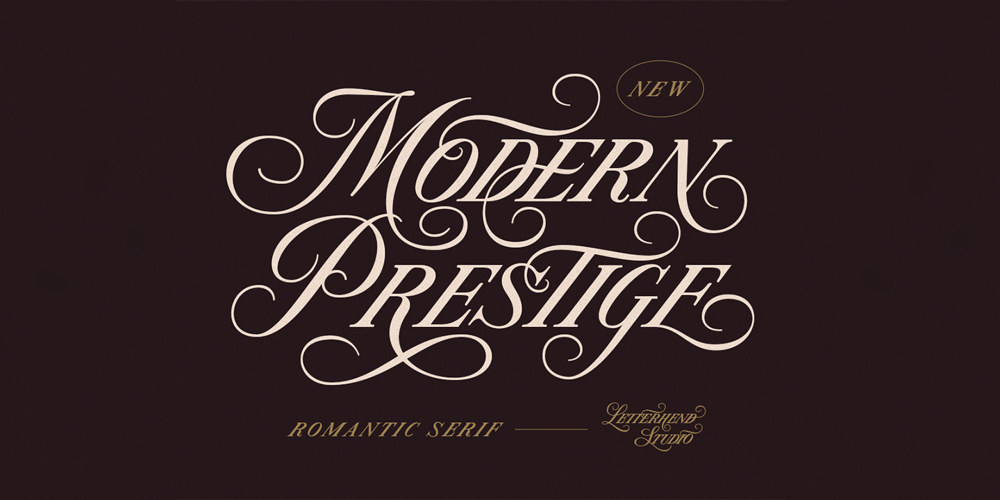
Modern Prestige Font Family was designed by Hendry Juanda and published by Letterhend. Modern Prestige contains 1 styles and family package options. Modern Prestige is a unique serif which is combined with copperplate script letterform with all the swashes! This typeface has many alternates with swashes that can make your lettering / logotype become more interesting. The clean and neat of a serif combined with the swirl swashes makes this font one of a kind!This font perfectly made to be applied especially in logo, and the other various formal forms such as invitations, labels, logos, magazines, books, greeting / wedding cards, packaging, fashion, make up, stationery, novels, labels or any type of advertising purpose.Features : uppercase & lowercase numbers and punctuation multilingual ligatures alternates swashes PUA encoded We highly recommend using a program that supports OpenType features and Glyphs panels like many of Adobe apps and Corel Draw, so you can see and access all Glyph variations.